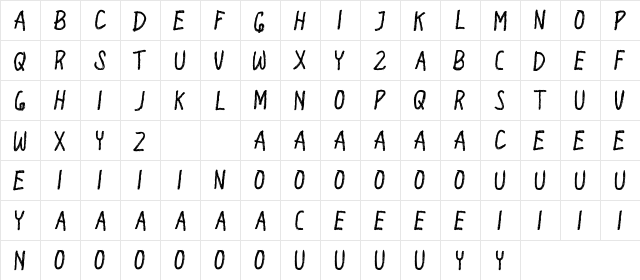
Dazz Place Demo Display Regular
| Foundry | Edric Studio |
| Designer | Yasri Ainun N & Sarah Suci P |
Design Context for Dazz Place Demo Display Typeface
Dazz Place Demo Display is built around its visual character rather than neutral utility — its distinctive forms are designed to make an impression at display sizes.
Font Pairing: Pair with a clean neutral sans-serif for body copy to let Dazz Place Demo Display's character lead without overwhelming the composition.
Pro Tip: Treat Dazz Place Demo Display as the centrepiece of your typographic hierarchy. One strong heading set in a decorative face can carry an entire layout.